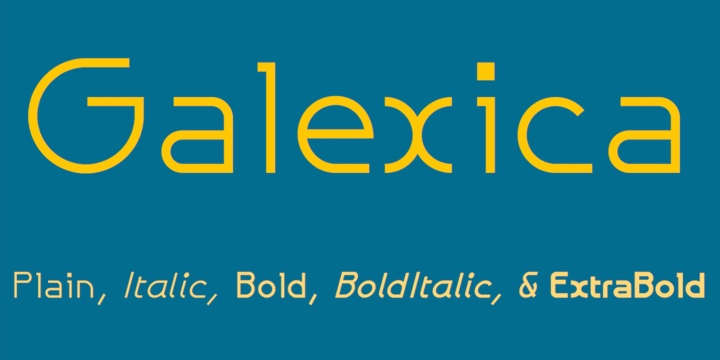
Galexica Font
Galexica Font is perfect for space exploration branding, galaxy-themed entertainment venues, astronomy education materials, sci-fi movie marketing, planetarium exhibitions, cosmic art installations, interstellar gaming interfaces, and astronomical research publications where galactic wonder and cosmic exploration are emphasized.
What makes Galexica Font so exciting is its cosmic ability to capture the infinite majesty of galactic space through stellar letterforms that embody the mystery and grandeur of distant galaxies while maintaining excellent readability across cosmic-themed applications. The celestial character design reflects the awe-inspiring scale and scientific wonder that defines our understanding of the universe.
The Galexica Font family includes thin, light, regular, medium, bold, and black weights, with stellar variants and galaxy-inspired ornamental elements that provide comprehensive tools for creating authentic space branding and cosmic exploration design systems.
The font's expansive character architecture and cosmic proportions create immediate associations with galaxy exploration and astronomical research endeavors. Each letterform has been designed to evoke the vastness and scientific complexity that defines galactic astronomy and interstellar exploration missions.
Galexica Font excels in creating inspiring brand identities that capture the imagination and promote cosmic education and space exploration. The typeface's galactic character makes it ideal for space agencies, astronomy centers, and science museums targeting audiences fascinated by cosmic discovery and galactic phenomena.
From space observatories to cosmic theme parks, this font brings astronomical credibility that appeals to audiences captivated by galaxy exploration and cosmic science. The versatile design maintains its stellar character across both traditional astronomy materials and modern digital space exploration platforms.